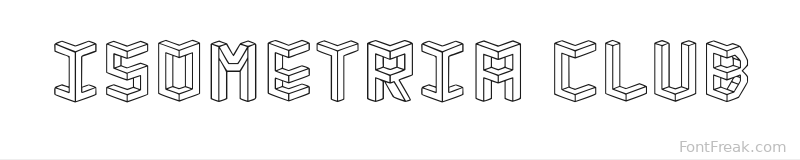
Isometria Club
The Isometria Club font by woodcutter Manero is a striking display typeface that captivates with its unique geometric design. This decorative font features a distinctive three-dimensional effect, characterized by sharp angles and blocky forms that create a sense of depth. The stroke weight is consistent, giving it a bold presence while maintaining a clean and modern aesthetic. The spacing between characters allows for easy readability, making it suitable for various applications.
Isometria Club excels in creative projects that require a touch of flair. It is an excellent choice for branding materials, particularly for businesses seeking a contemporary identity. Whether used in promotional posters, event flyers, or album covers, this font adds a playful yet professional touch. It also works well in digital applications, such as website headers or social media graphics, where eye-catching typography can make a significant impact. Additionally, the font's unique style makes it a great fit for gaming designs and tech-related projects, appealing to a younger demographic.
Targeting graphic designers, small business owners, and content creators, Isometria Club offers versatility in its applications. It invites creativity and experimentation, allowing users to stand out in a crowded marketplace. Its freeware license makes it accessible for personal and commercial use, encouraging widespread adoption.
What sets the Isometria Club font apart is its ability to blend artistic expression with functionality. Its geometric charm and modern appeal ensure that it not only grabs attention but also communicates messages effectively. For those looking to elevate their designs, the Isometria Club font free download opens up a world of possibilities, inviting users to explore its dynamic potential in their projects.